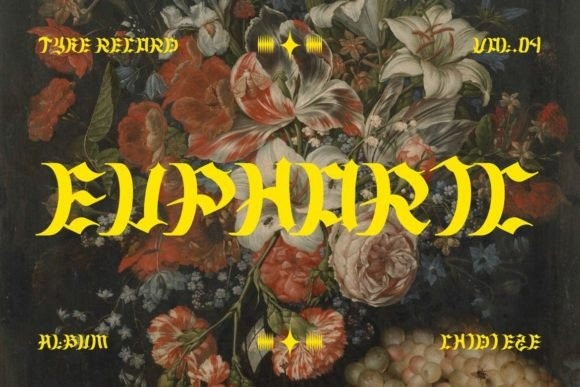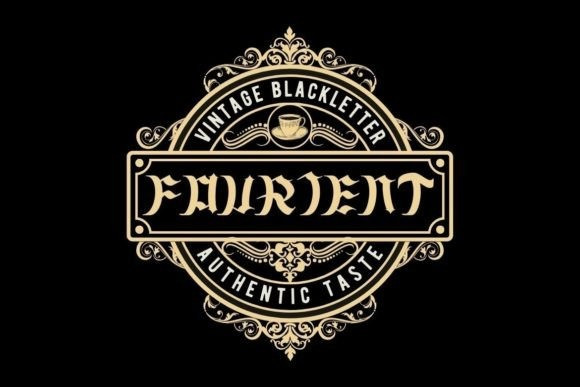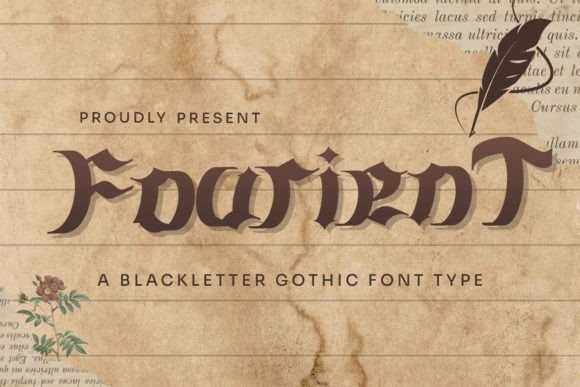
Fourient Font
Fourient Font is a cool and stylish blackletter font. This Font can be used for various purposes such as Magazine Title, Poster, Logo, T-Shirt, Sub Title, Business cards, Magazines, Book Covers, Wedding Invitations,Templates Instagram Story Post, Greeting Cards, Quotes, etc.